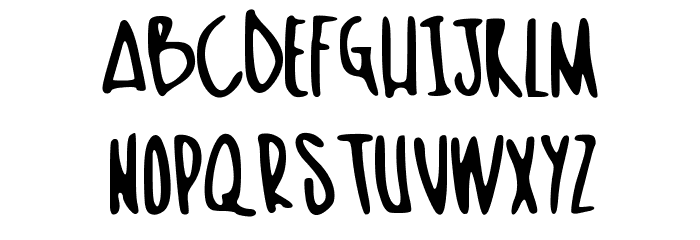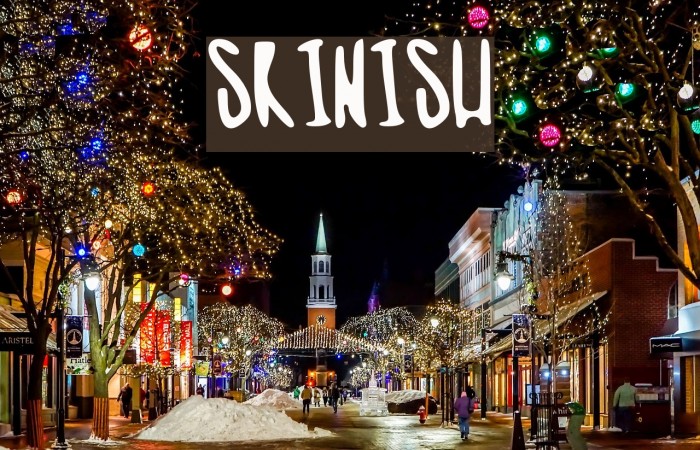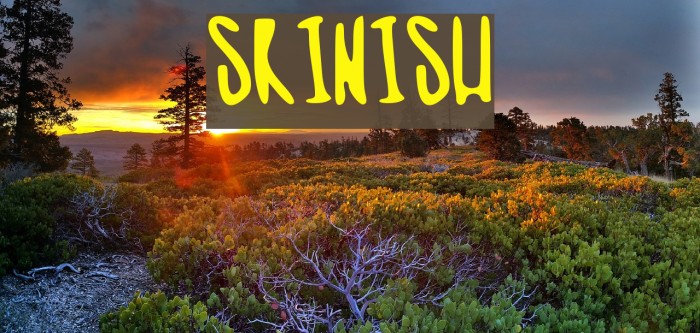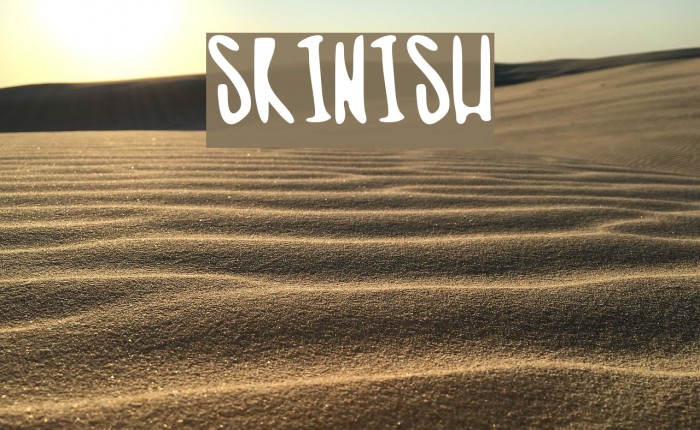
skinish Font
This font features a playful and bold handwritten style, characterized by its irregular and dynamic letterforms. The uppercase letters are slightly tilted and vary in width, giving a lively and informal appearance. The strokes are thick and consistent, providing a strong visual impact. The overall design is reminiscent of casual handwriting, making it suitable for projects that require a personal and approachable touch. The font's unique style is both eye-catching and versatile, ideal for creative and expressive design work.
A bold, playful handwritten font with dynamic and irregular letterforms.
- Proposed Projects: Ideal for greeting cards, children's books, playful branding, and creative posters.
- Overall Style: Playful